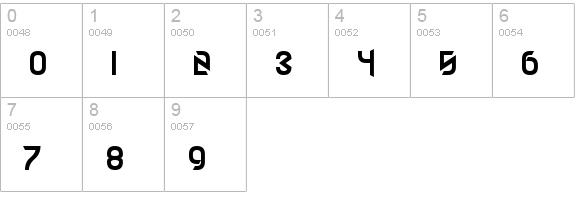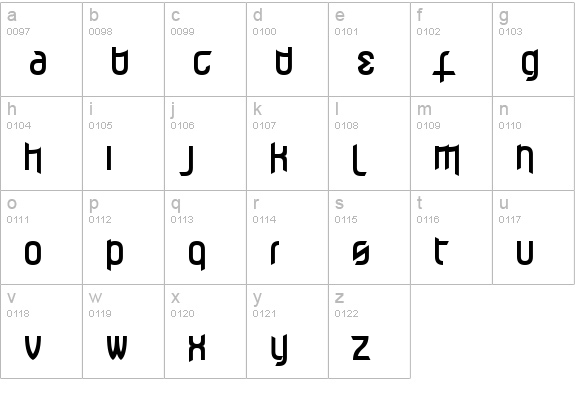
Effervescent Superbeings Font Details
Effervescent Superbeings font is a stunning display typeface that exudes energy and dynamism. Its bold and playful design is perfect for creating eye-catching designs, whether for posters, logos, or social media graphics. The unique combination of sharp edges and rounded curves gives this font a modern and futuristic look that is sure to make your work stand out. Effervescent Superbeings font is not only visually striking but also versatile, making it suitable for a wide range of design projects. Its high level of legibility ensures that your message will be effectively communicated to your audience. Whether you're designing for print or digital media, this font will add a touch of excitement and creativity to your work. Best of all, Effervescent Superbeings font is free to download at FontsMarket.com. This means you can start using this fantastic font in your projects right away without having to worry about breaking the bank. Don't miss out on the opportunity to add this dynamic and captivating font to your design toolkit today.